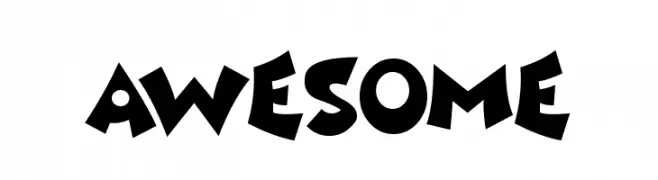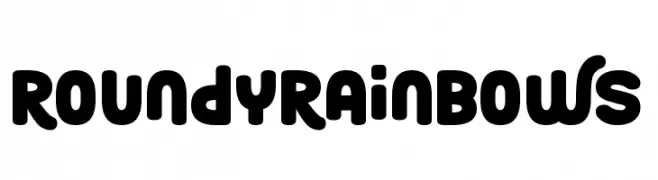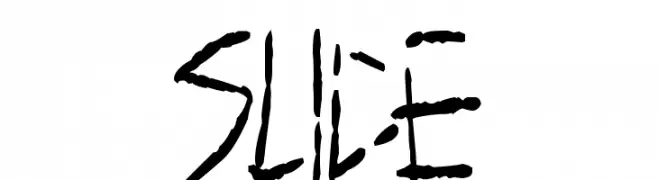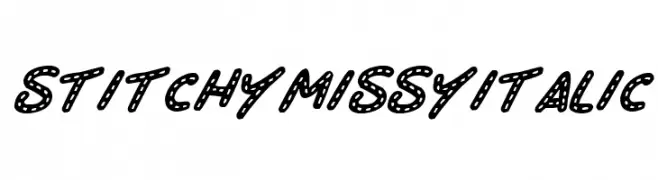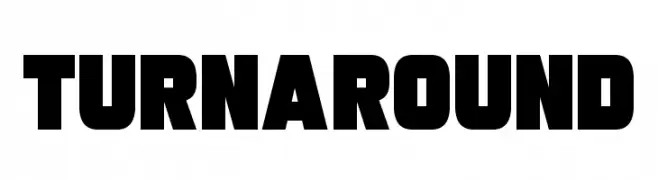
A bold, geometric font with a modern and impactful style.
A playful, cookie-inspired font with bold, rounded characters and a dotted pattern.
A playful, hand-painted style font with bold, fluid strokes and a whimsical feel.
A playful and bold font with exaggerated curves and whimsical shapes.
A jagged, hand-drawn font with an edgy, artistic style.
A bold, rounded font with a playful and chunky style.
A playful, rounded font with a bold, bubbly appearance.
A playful, dotted italic font with bold, rounded strokes.
A playful, stitched-style font with bold, rounded characters.
A bold, geometric font with a futuristic and industrial style.